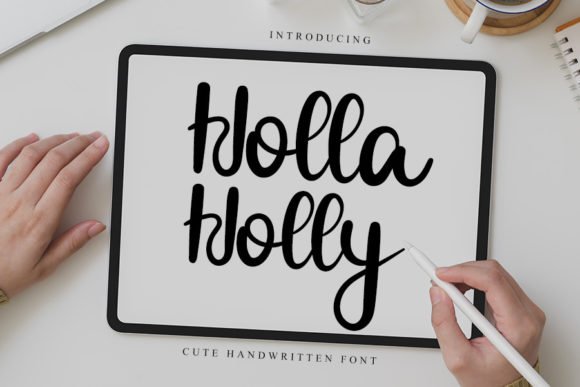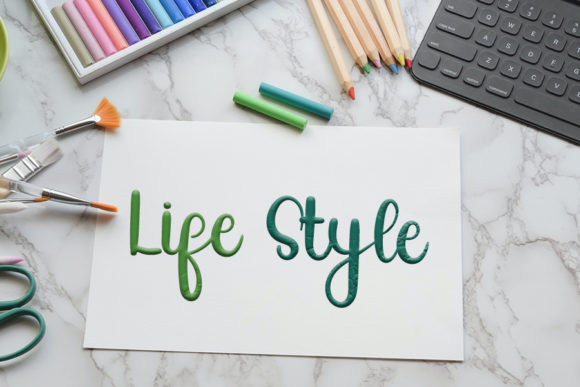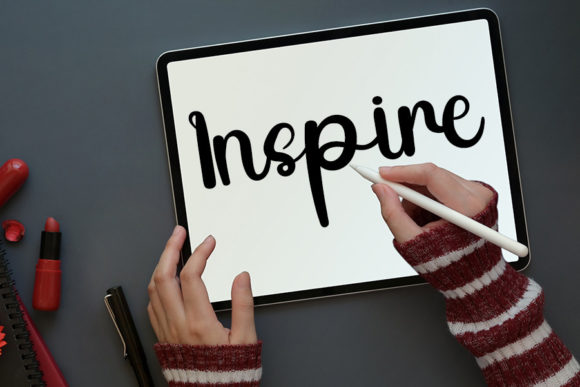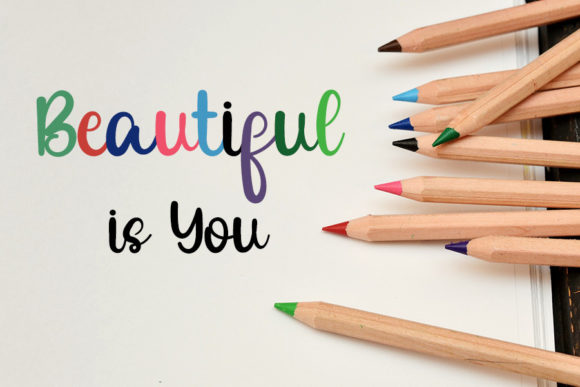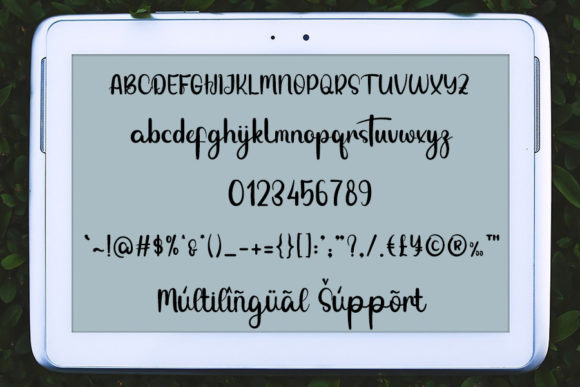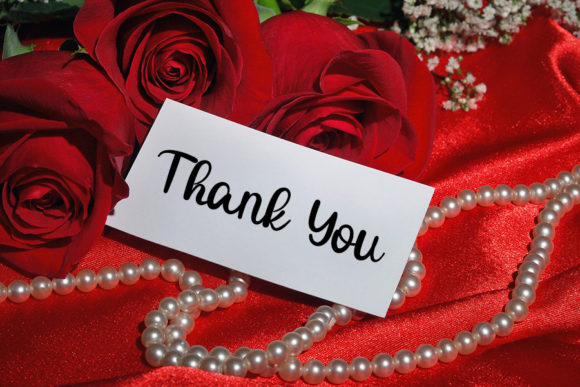
The Art of Elegant Typography: Unveiling the Holla Holly Font
Have you ever sat in front of your computer, staring at a blank page, trying to come up with the perfect design concept? It’s that moment of creative blockage when you wish you had the perfect tool to bring your vision to life. For designers like you, finding the right font can make all the difference. This is where the Holla Holly Font comes in – a stylish handwritten font that exudes a contemporary atmosphere and impeccable form.
Designed to enhance the beauty of your projects, the Holla Holly Font is inspired by a timeless classic calligraphy. Its balanced and varied strokes make it perfect for adding a touch of elegance to your designs. Whether you’re a seasoned designer or just starting out, this font is a valuable addition to your toolkit. With its versatility and sophistication, the Holla Holly Font is sure to elevate your projects to the next level.
Holla Holly Font Key Features
- Unique Characteristics: Holla Holly features a unique, hand-drawn design with a festive and playful feel, making it perfect for use in holiday-themed designs and branding.
Holla Holly Font Review
I’ve had the chance to work with the “Holla Holly Font” recently, and I wanted to share my honest thoughts. Here’s what I think:
The font’s playful and whimsical feel is perfect for projects that need a bit of personality. It’s a great choice for social media graphics, party invitations, or any other design that requires a lighthearted tone.
The font’s lines are smooth and clean, making it easy to read and work with. The overall design is well-executed, with no awkward shapes or clunky lines.
The font comes in a variety of weights, from light to bold, giving you plenty of options for customizing your design.
While the font is great for playful designs, it may not be the best choice for more formal or professional projects. The whimsical feel may come across as unprofessional or immature.
The font is not suitable for small text sizes, as the lines can become blurry and difficult to read.
Overall, I think the “Holla Holly Font” is a great choice for designers who need a playful, whimsical font for their projects. However, it’s not the best choice for more formal or professional designs, and may have some compatibility issues in certain situations.
Tips for Getting the Most Out of Holla Holly Font
To get the most out of the Holla Holly Font, use it in conjunction with bold or italic text to create visual interest. You can also use it in headings and titles to add a touch of whimsy and personality to your design.
The Holla Holly Font is particularly well-suited for use in designs that require a playful and festive tone, such as holiday cards, party invitations, and social media graphics.